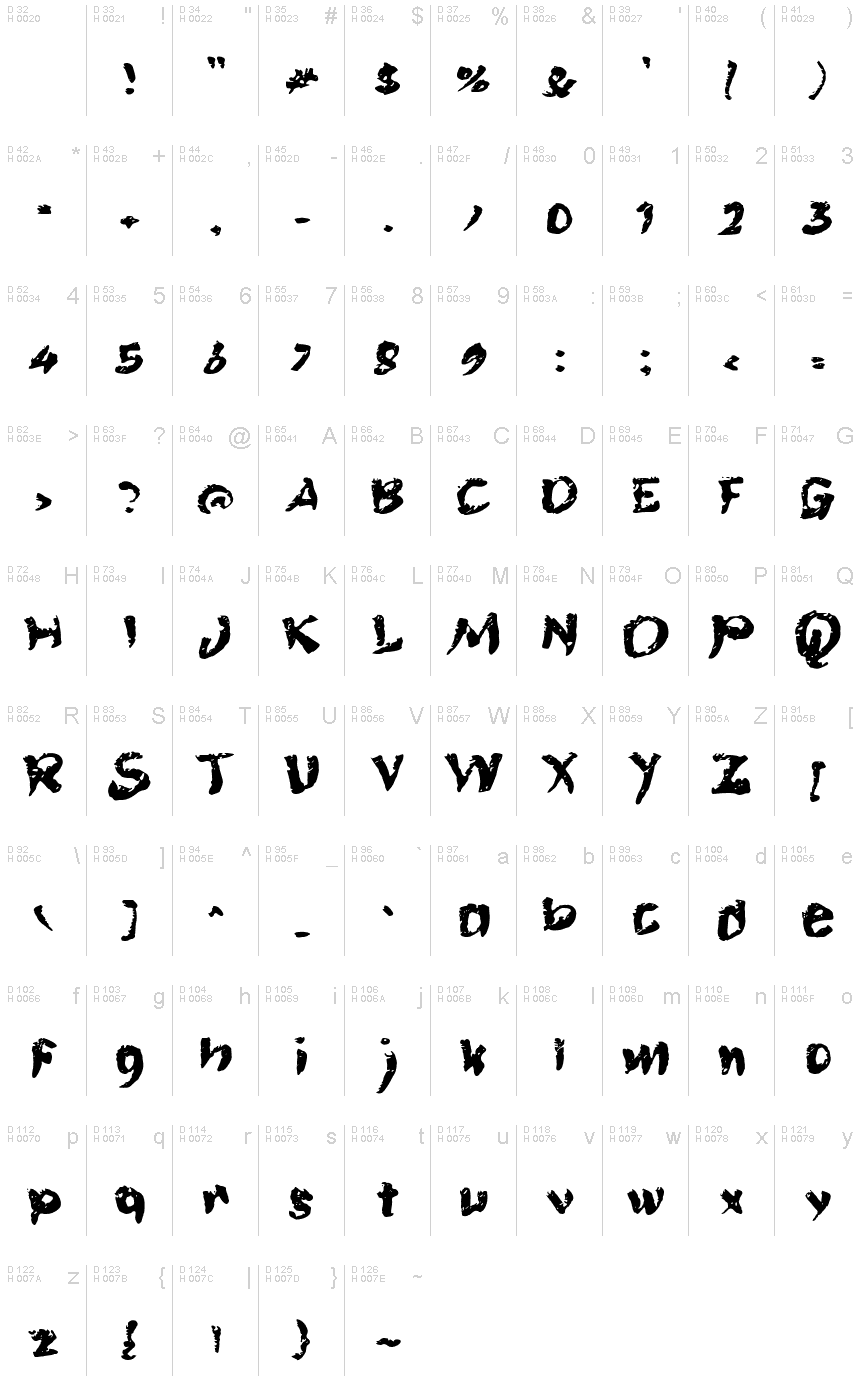
Etnis
Meet Etnis, the bold and edgy display font designed by wep. With its eroded style, this typeface exudes a rugged and raw energy perfect for any project in need of a striking visual impact. The bold weight demands attention and adds emphasis to your message. Use Etnis to add character to your branding, posters, or album covers. This versatile font is also suitable for editorial designs or website headings that require a touch of personality. Let Etnis bring an air of rebellion and individuality to your next creative endeavor.